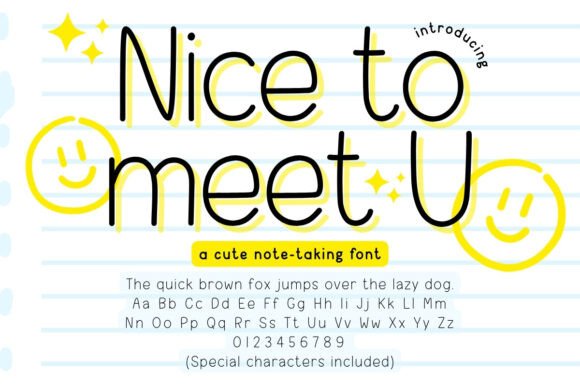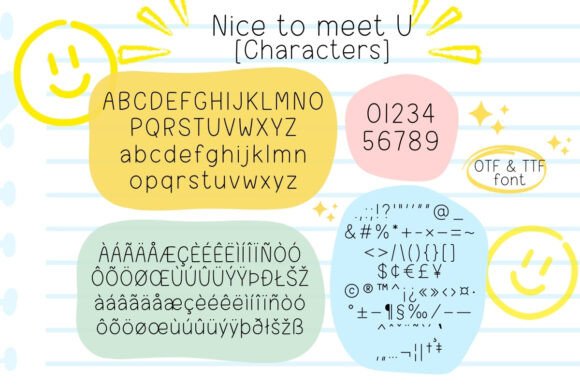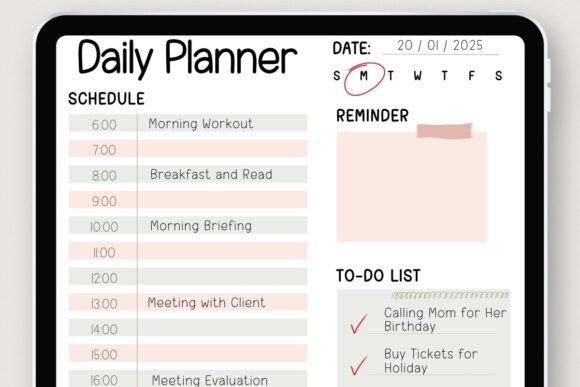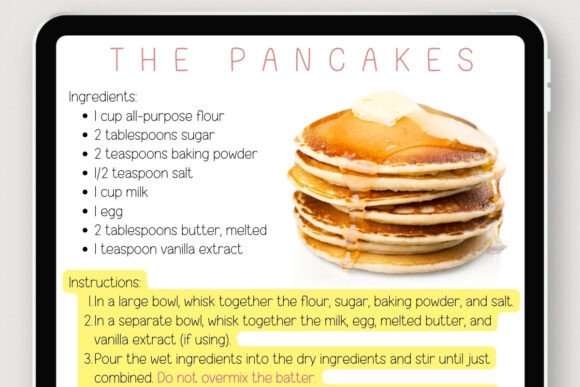
Nice to Meet U Font
About the Nice to Meet U Font
Presenting Nice to Meet U Font, a unique and stylish typeface that will make your work stand out. Nice to Meet U is a fun and cute handwriting font designed to make your school notes, digital planners, and creative projects stand out! Its playful and neat style makes it perfect for students, crafters, and digital enthusiasts who want to add a cheerful touch to their designs.
Whether you’re organizing your school notes, creating digital planners on GoodNotes, or designing projects in Canva and Procreate, Nice to Meet U is a versatile and charming choice.
This font shines in projects requiring a friendly and approachable aesthetic. It’s ideal for branding playful products, crafting eye-catching social media graphics, or adding personality to invitations and greeting cards. Use it for short headlines, quotes, or logos where its charming character can be fully appreciated. Avoid using it for large blocks of body text or UI elements; its informal nature makes it less suitable for lengthy content or applications demanding high readability.
Pairing Nice to Meet U with a clean sans-serif like Open Sans for body copy creates a balanced contrast. For a more sophisticated feel, consider a classic serif like Garamond or a geometric sans-serif such as Futura. These pairings provide structure and readability, allowing the playful Nice to Meet U to stand out as an accent.
Nice to Meet U’s core personality is cheerful and approachable, conveying a sense of youthful energy and approachability. It’s best suited for brands or projects aiming for a friendly, informal, and lighthearted tone.
Nice to Meet U Font Usage Examples
Nice to Meet U Font Example